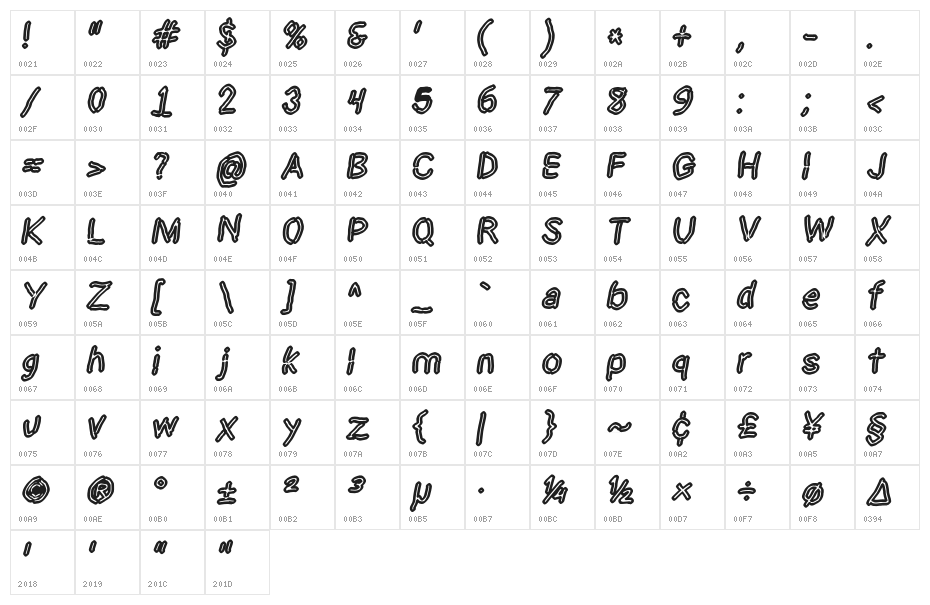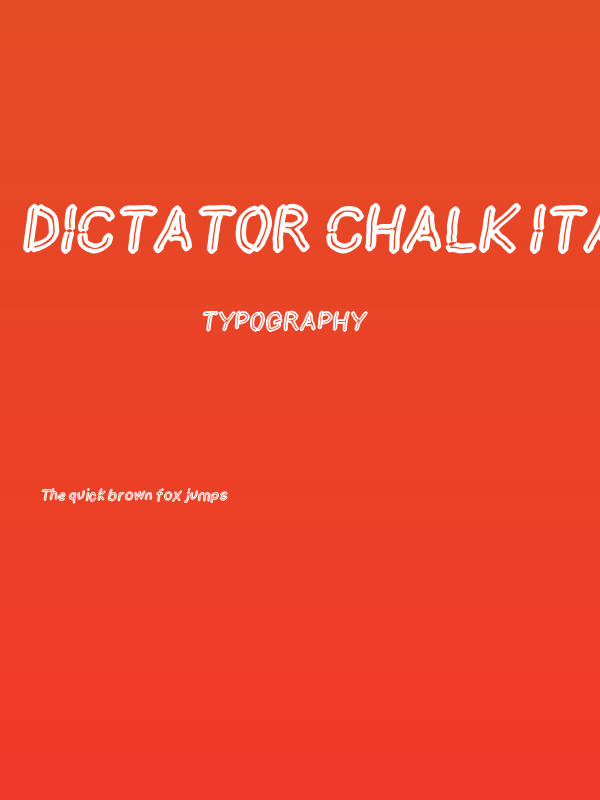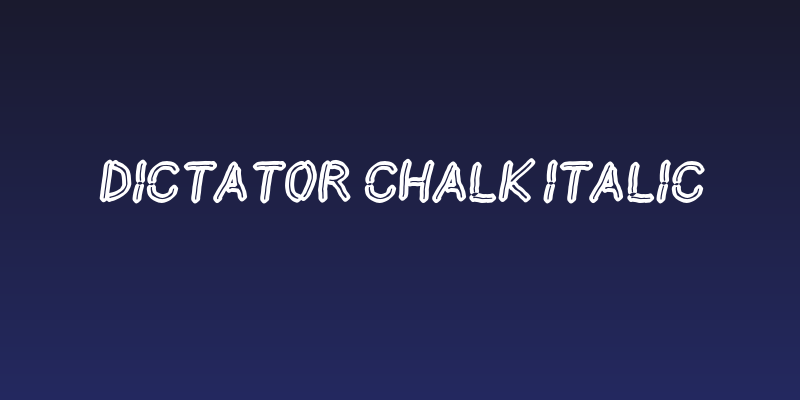
Dictator Chalk Italic Font
Dictator Chalk Italic Description
This font features a playful and bold chalk-like appearance, with each character outlined to create a three-dimensional effect. The letters are slightly slanted, adding a dynamic and informal touch. The uppercase and lowercase letters maintain consistent styling, with rounded edges and a hand-drawn feel. Numbers and special characters follow the same aesthetic, ensuring uniformity across all glyphs. The font's unique style makes it suitable for creative projects where a casual and artistic vibe is desired.
Proposed ProjectsIdeal for school projects, children's book covers, playful posters, and creative social media graphics.